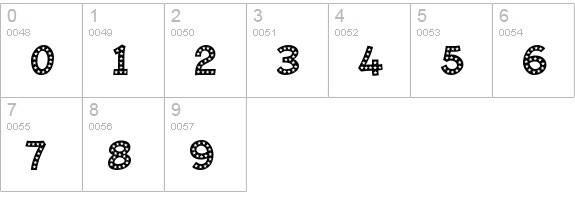
Paltime Glam is a stylish and elegant font that exudes sophistication and glamour. With its sleek lines and luxurious appearance, this font is perfect for adding a touch of class to any design project. Whether you are creating invitations, logos, or branding materials, Paltime Glam is sure to make a statement. The best part? Paltime Glam is free to download at FontsMarket.com! You can easily elevate your designs with this stunning font without breaking the bank. So why wait? Download Paltime Glam today and add a touch of glamour to your next project.